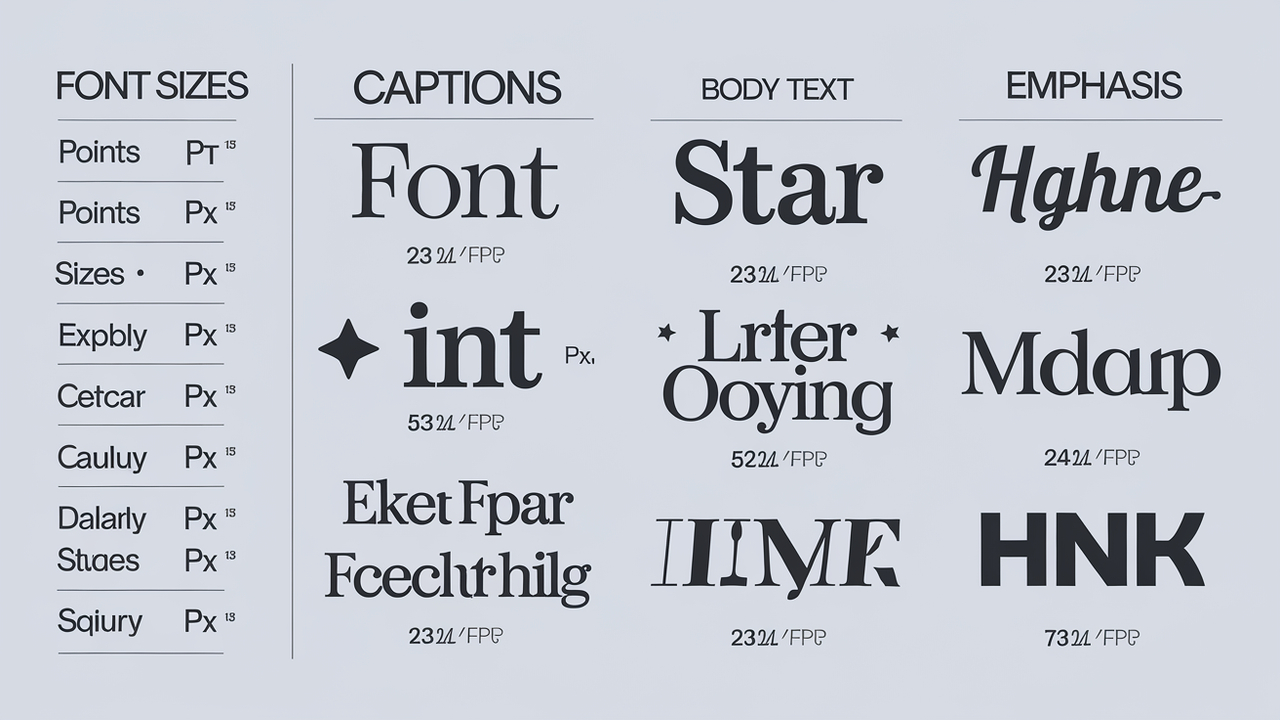
Understanding font size is essential for web pages, printed material, or documents in Microsoft Word. Font size affects readability and can significantly impact how your audience perceives your content. This guide will delve into the importance of font sizing and how to choose the right font size for different applications.
Understanding Key Points In Font Size Comparison
Measurement Units> Font Types> Size Ranges
Font sizes are measured in points (pt) for print and pixels (px) for web design, with 12 pt as a common default in print. Due to decorative elements, serif fonts often look larger than sans-serif fonts at the same size. Different typefaces, like Times New Roman and Arial, can also affect readability. For printed materials, body text typically ranges from 10 pt to 12 pt, while on the web, a recommended size is between 15 px and 25 px for clarity.
| Font Size (pt) | Approx. Pixel Size (px) | Common Uses |
| 8 pt | 10.67 px | Captions, Footnotes |
| 10 pt | 13.33 px | Body text (small) |
| 12 pt | 16 px | Body text (standard) |
| 14 pt | 18.67 px | Subheadings |
| 16 pt | 21.33 px | Headings |
| 18 pt | 24 px | Emphasis text |
Font size is a measurement that describes the height of characters in a specific typeface. It’s usually measured in points (pt), with 1 point equating to 1/72 of an inch. Here are some common terms associated with font size:
- Default Font Size: The size preset in software applications. The default font size in Microsoft Word is often set to 11 or 12 pt.
- Base Font Size: The standard size often references other text elements. For instance, if the body font size is set to 12 pt, headings maybe 16 pt or larger.
- Relative Sizes: Descriptions like larger, smaller, or smaller sizes compared to current font size.
Factors To Consider When Choosing Font Size
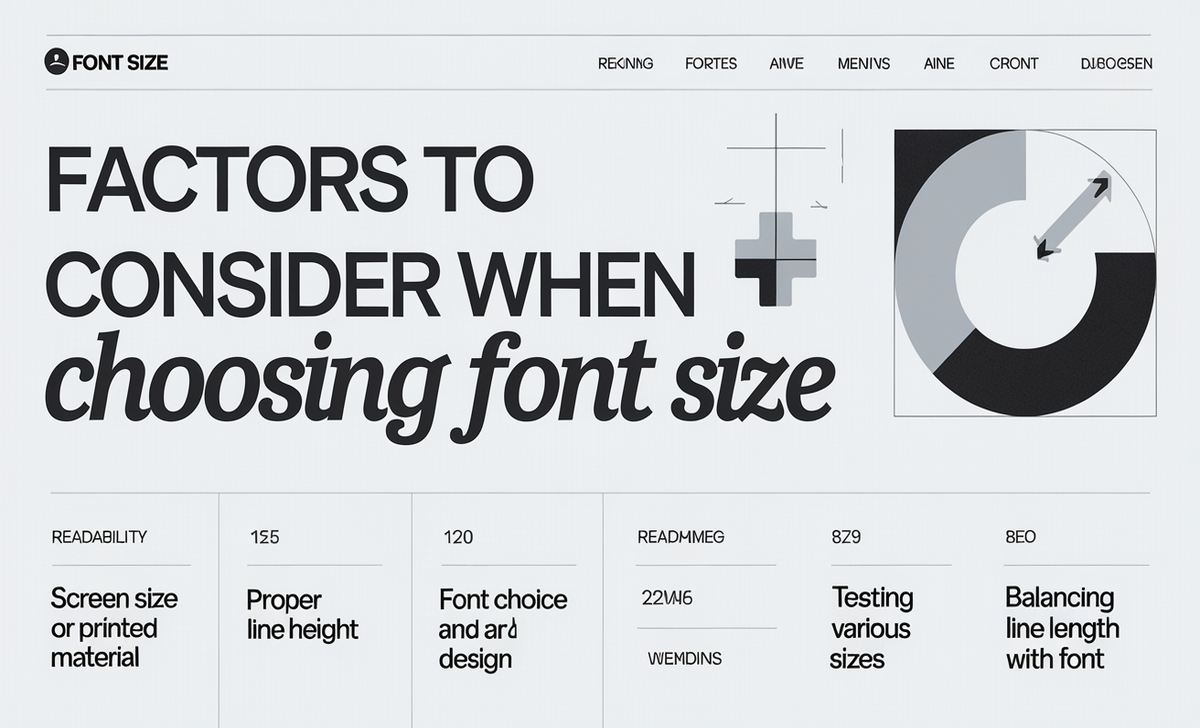
When choosing font size, consider factors like screen size or printed material, as smaller screens may need larger fonts for readability. Readability is key—ensure proper line height and spacing to avoid crowding. Your font choice and design affect how different fonts display at the same size, so always test various sizes. For both web design and print, balance line length with font size for the best user experience.
Screen Size Vs. Printed Material
Different media have different requirements. For smaller screens, such as smartphones, a larger font may be necessary for readability. Conversely, in printed projects, a minimum font size of 10 pt is often recommended for body text.
Readability
The primary goal of choosing a font size is to ensure the text is easy to read. Large print (14 pt or larger) is suitable for users who may struggle with smaller text. Line spacing and line height also contribute to readability—ensure sufficient spacing to avoid crowding.
Type Size
The type size must also consider the line length. Text that is too wide can strain the reader’s eyes, while a well-balanced line length paired with appropriate line spacing enhances the overall reading experience.
Font Choice And Design
Different fonts (or typefaces) have varying pixel values for the same point size. For example, a larger font may appear more compact than a smaller one, so it’s crucial to test different font designs to find what works best for your content.
Testing Sizes
Use tools to preview how text appears at different sizes. Websites designed for web design often allow you to experiment with different sizes and styles to determine the most effective combination for your audience.
Choosing the right font size is critical to effective communication. It impacts readability, user experience, and the overall aesthetic of your design. Whether you’re working on web content, printed material, or documents in Microsoft Word, consider the context and audience needs when selecting your font size.
Testing and adjusting based on the intended use will help ensure your text is not only visually appealing but also accessible to all readers.
1.What Is The Default Font Size In Microsoft Word?
The default font size is typically 11 or 12 pt, depending on the version and settings.
2.How Do I Determine The Minimum Font Size For Readability?
A minimum font size of 10 pt generally works for body text in printed material.
3.Does Font Size Vary Between Web And Print?
Yes, font sizes may need to be larger for screens, especially on smaller screens, compared to printed materials.
4.What Is The Best Font Size For Large Text?
A large font size (14 pt or larger) is suitable for better visibility and readability for users with visual impairments.
5.How Does Line Height Affect Font Size?
Proper line height enhances readability by providing adequate spacing between lines, making it easier for readers to follow text.